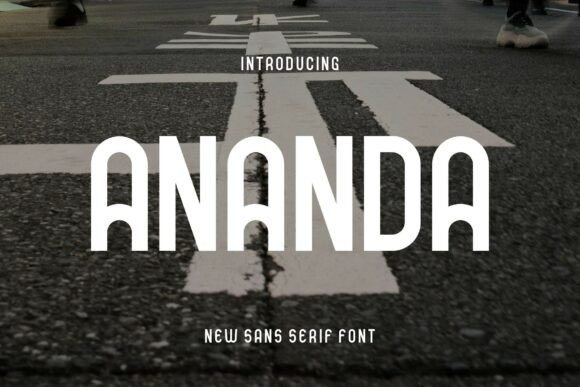
The Perfect Font to Bring Your Ideas to Life
Have you ever stared at a blank canvas, waiting for inspiration to strike? That’s where the magic happens – when your imagination runs wild and your creativity takes over. For designers, this is the moment when a great font can make all the difference. Enter the Ananda Font, a sans serif font with a charming touch of style that will transport your designs to a new level.
With its natural and unique style, the Ananda Font is the perfect addition to any design project. Whether you’re working on a branding campaign, a website, or a social media graphic, this font will bring your ideas to life in a way that’s both elegant and approachable. As a valuable resource for designers, the Ananda Font offers endless possibilities for creativity and self-expression.
Ananda Font Key Features
- Font Family: Ananda is a sans-serif font family, designed to be highly legible and versatile for various applications.
- Unique Characteristics: Features a distinctive, rounded sans-serif design with a subtle touch of elegance, making it perfect for modern and sophisticated applications.
- Language Support: Supports a wide range of languages, including Latin, Cyrillic, and Devanagari scripts, making it an excellent choice for multilingual designs.
Ananda Font Review
As a designer, I’ve had the chance to work with various fonts, and I’m excited to share my thoughts on the Ananda font. ✨ One of the things that stands out about Ananda is its unique, elegant aesthetic. The curves and lines work well together to create a sophisticated feel that’s perfect for luxury brands or high-end publications.
- ✨ Elegant and sophisticated aesthetic
- ✨ Wide range of weights and styles to choose from
- ✨ Highly legible, even at smaller font sizes
- ⚠️ May not be suitable for more casual or playful branding
- ⚠️ Some users may find the font too ornate or over-the-top
- ⚠️ Limited support for languages other than Latin
Overall, I think Ananda is a great choice for designers who want to add a touch of luxury to their projects. While it may not be suitable for every project, it’s definitely a versatile font that can be used in a variety of contexts. With its elegant aesthetic and wide range of styles, I think Ananda is definitely worth considering for your next design project.
For optimal results, use Ananda Font in conjunction with other elegant and minimalist design elements.
Experiment with different font sizes and styles to create a visually appealing and harmonious design.
Ananda Font is ideal for:
- Editorial and publishing projects